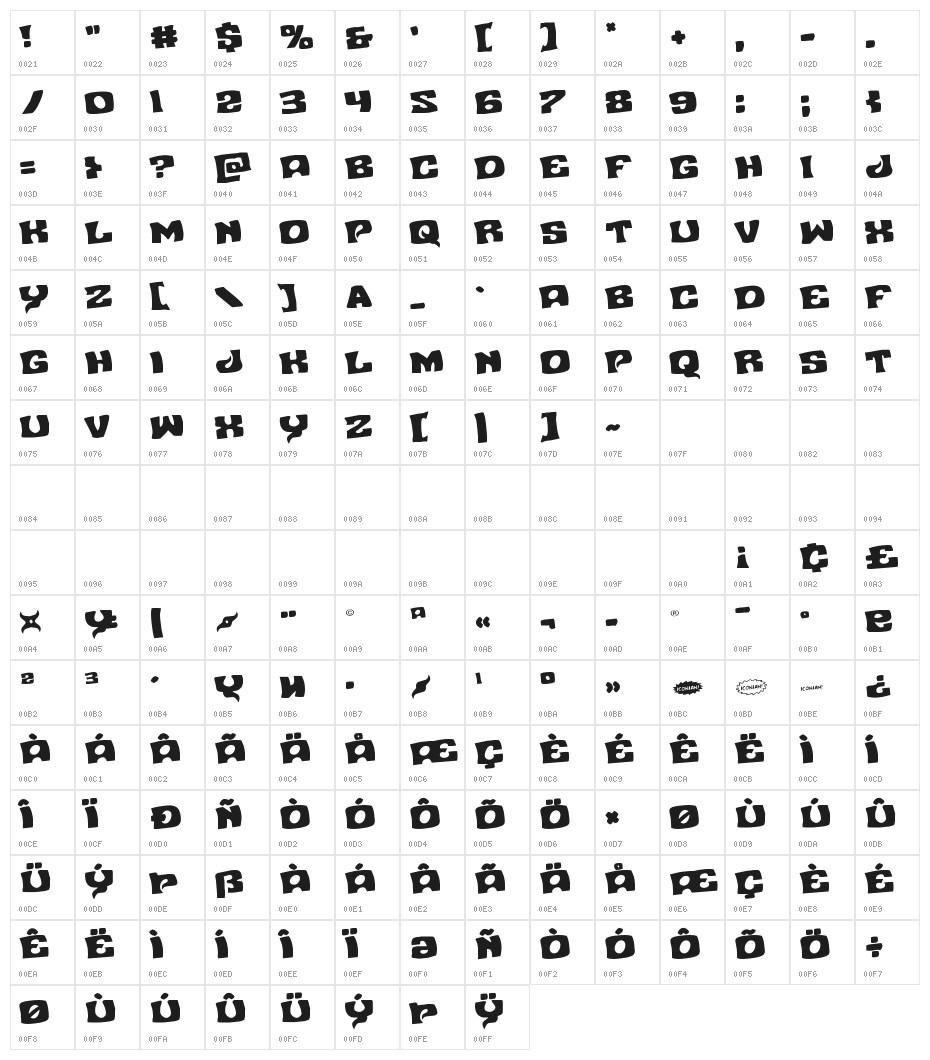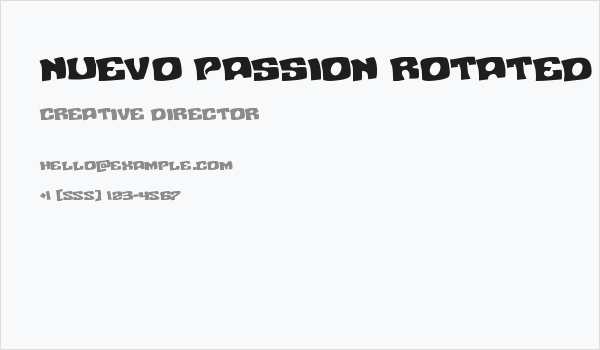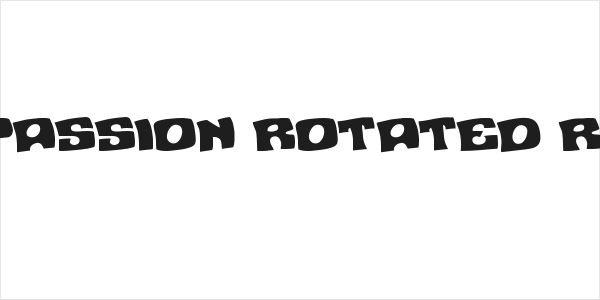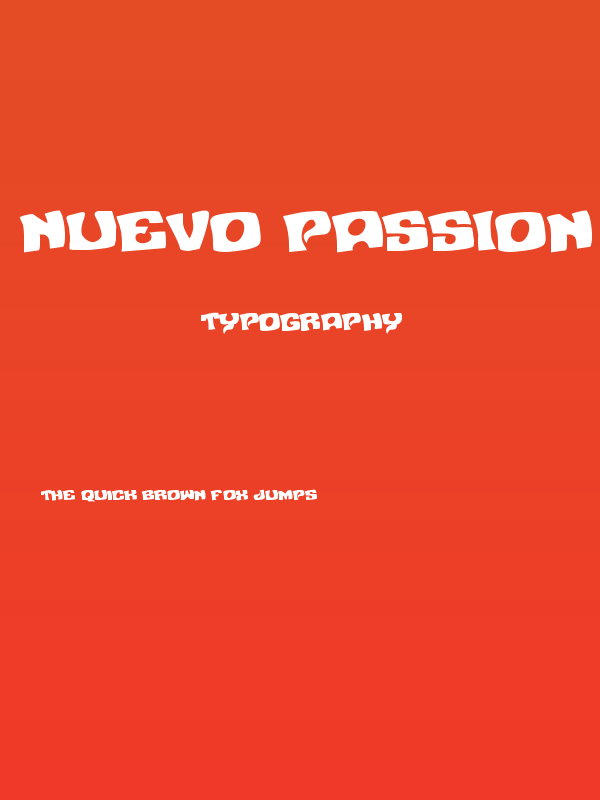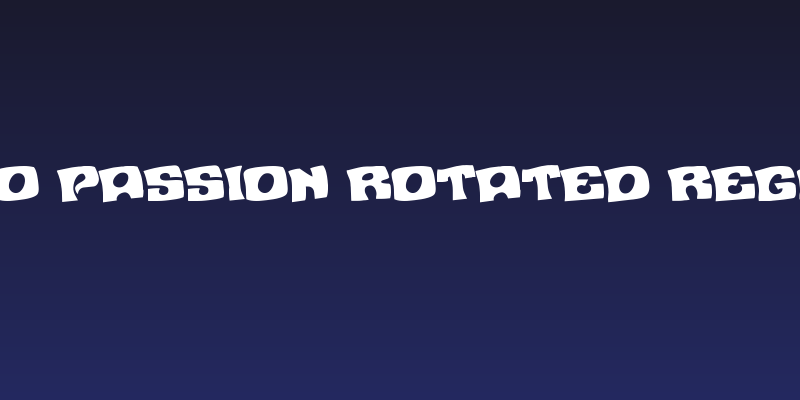
Nuevo Passion Rotated Regular Font
Nuevo Passion Rotated Regular Description
This font features a bold and dynamic style with a playful, slightly distorted appearance. The characters are thick and robust, with a unique rotation that gives them a sense of movement and energy. The uppercase and lowercase letters maintain a consistent weight, contributing to a cohesive look. The numbers and special characters follow the same design principles, ensuring uniformity across all glyphs. The font's exaggerated curves and angles create a distinctive, eye-catching aesthetic that is both modern and whimsical.
| Overall Style | Modern, Whimsical |
| Proposed Projects | Ideal for projects that require a bold statement, such as posters, logos, and branding materials. Its unique style makes it suitable for creative and artistic designs. |